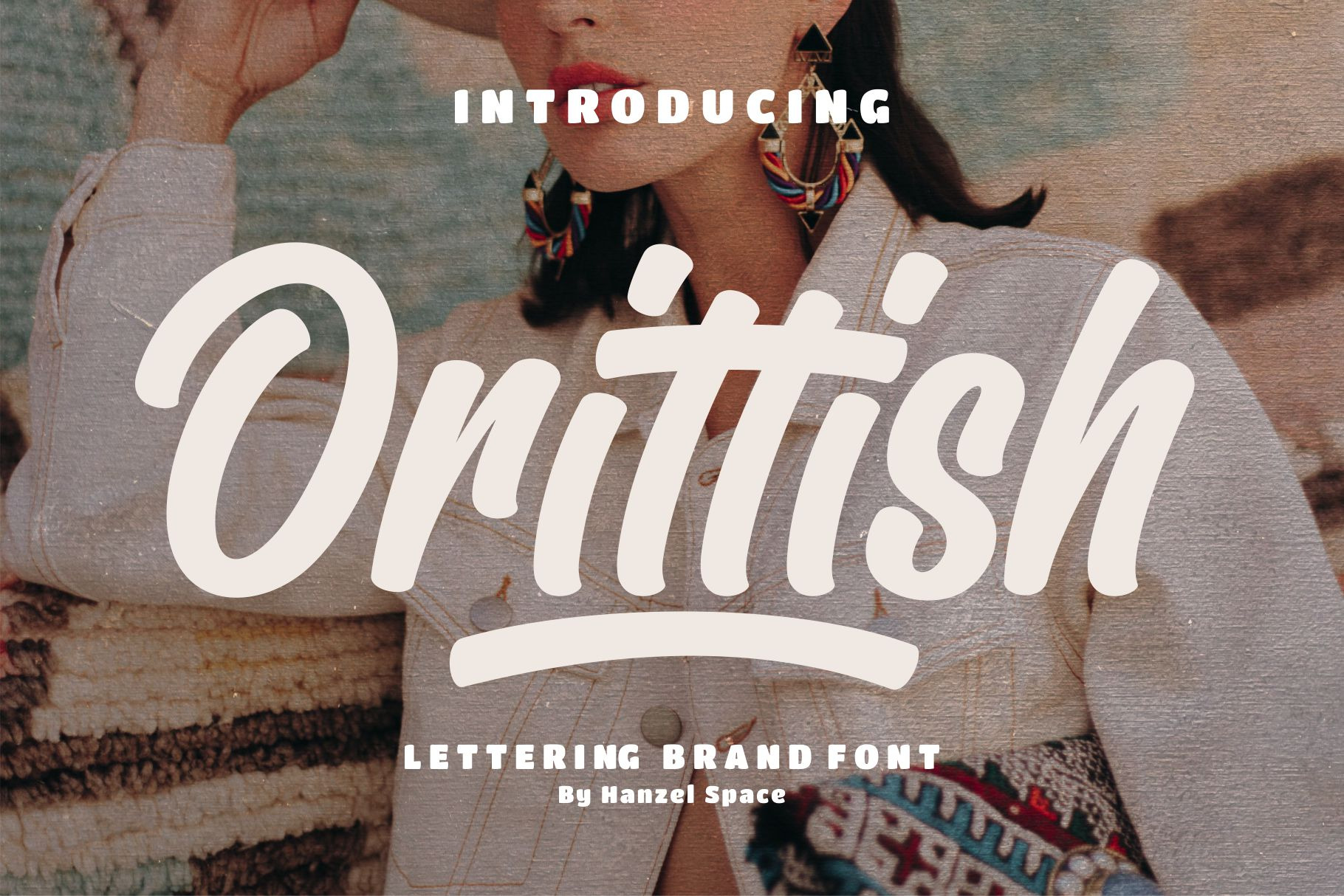
Orittish | Lettering Brand Font
Orittish - Lettering Brand Font
Introducing our font Orittish, we have finished the font project we made for your company's branding needs. The character of this font is that it has characters that are not connected to each other, we deliberately made it that way so that it is more flexible when it will be paired in a product branding for your business.
Orittish comes with upper and lowercase characters, punctuation, numerals,supports international languages and OpenType features with Stylistic Alternates,watshot type is very best choice fonts for : logo, headline, invitation, label, magazine, greeting / wedding card, packaging, fashion, make up, stationery, novel, book, cover, social media, event, poster, hang tag, merchandise, product, packaging, tagline, quote, brand, branding, program, music title, movie title, title, banner, videotron, advertisement, commercial, name card, billboard, template, trademark, social media, youtube, webfont, e-pub, application, game, website text, label, Instagram or any type of advertising purpose.
Stylistic alternates for key lower case characters are also available, accessible in the Adobe Illustrator Glyphs panel, or under Stylistic Alternates in the Adobe Photoshop OpenType menu.